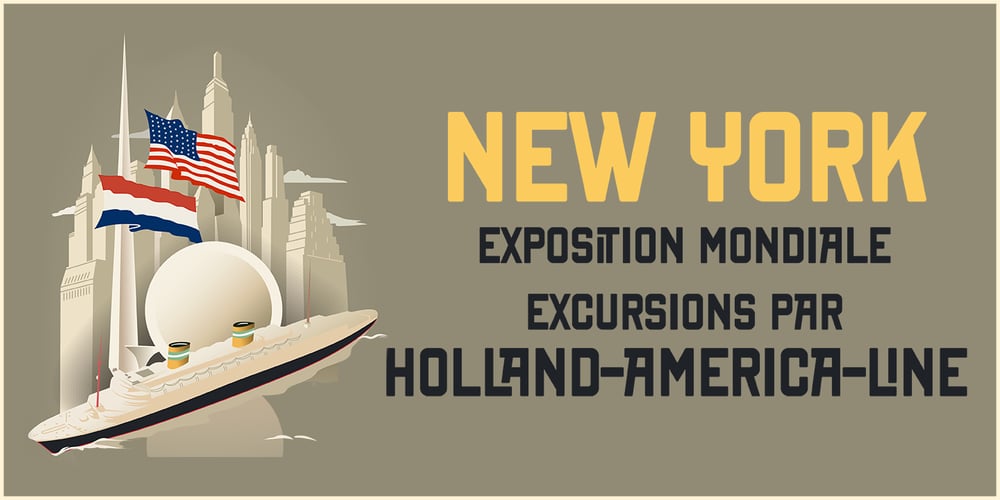
New York Line Font Family was designed by Coert De Decker and published by Kustomtype. New York Line contains 1 styles and family package options. When you go traveling you always fall in love with something… At this time, it is the inscription of Holland America Line which is sparkling on ‘New York Hotel’, Rotterdam-Holland. Based on the letters I had at my disposal from the Holland America Line inscription at ‘Hotel New York,’ I started to complete the alphabet in the same style as the original text. Eventually, I digitized everything in order to acquire a usable and modern font to be able to use it for all graphic purposes. The font is ideal for head text, posters, logos, editorial, branding, signage, web applications, modern design, etc… Don’t hesitate to use this unique historical font! It will give your work that glamour that you will find in this extraordinary font. Enjoy the New York Line. The Holland America Line was founded in 1873 as the Dutch-America Steamship, a shipping, and passenger line. Because it was headquartered in Rotterdam and provided service to the Americas, it became known as Holland America Line (HAL). From 1901 the iconic building on the Kop van Zuid shines. It previously housed the Holland America Line; now it houses the hotel-restaurant, Hotel New York. A building with a great history. Hotel New York has a beautiful history. Built in 1901, many ships sailing away and opened in 1993 as a hotel and restaurant. The New York Line Font comes with uppercase, lowercase, numerals, punctuations so you can use it to customize all your designs. Perfect for Logos, Letterhead, Poster, Apparel Design, Package design, Label design etc. The New York Line Font is designed by Coert De Decker in 2018 and published by Kustomtype Font Foundry. Enjoy your journey with the New york Line!